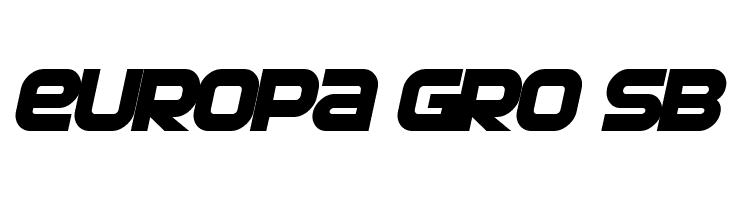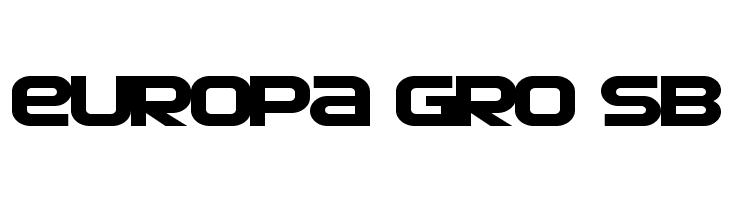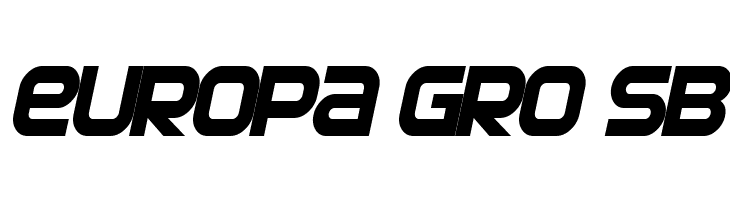
A bold, oblique font with a futuristic and mechanical design.
A futuristic, geometric font with bold, angular letterforms.
A futuristic, geometric font with bold, blocky letterforms and consistent stroke width.
A futuristic, bold, and oblique font with a condensed style.
A bold, condensed font with a futuristic, geometric design.
A bold, futuristic font with a geometric, industrial design.
A bold, futuristic oblique font with a dynamic and geometric style.